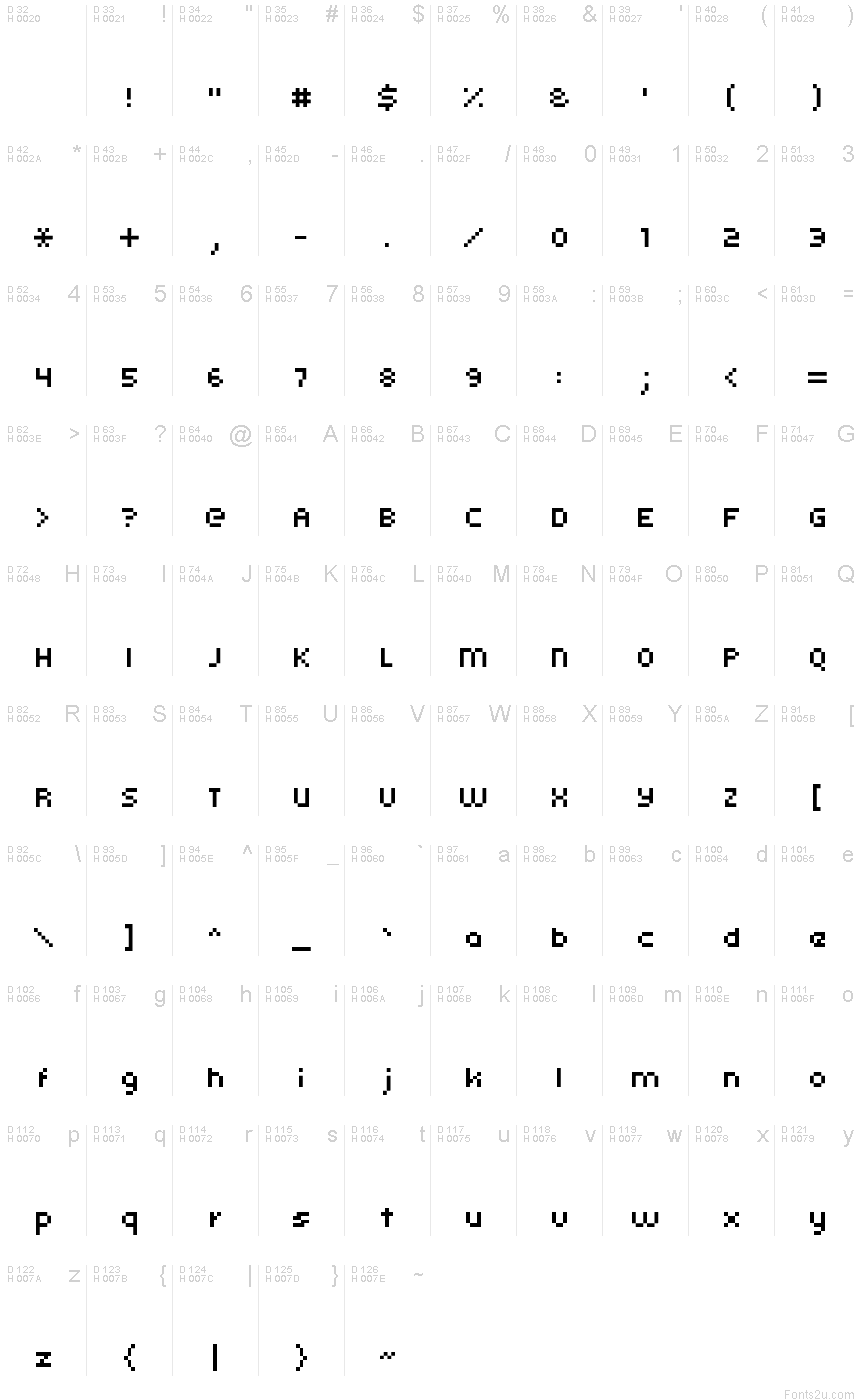
kroeger 05_55
Kroeger 05_55 font by Craig Kroeger is a free pixelated bitmap display font built from chunky square modules and sharp step-like edges. The sample keeps that low-resolution grid throughout, with open gaps and clipped corners that give each shape a mechanical, screen-made rhythm.
Kroeger 05_55 works well for game menus, software mockups, poster headers, label text, and short logo treatments because its blocky forms read like classic pixel graphics. This free font also suits captions and interface accents where a compact bitmap style needs to feel deliberate without losing legibility at small sizes.